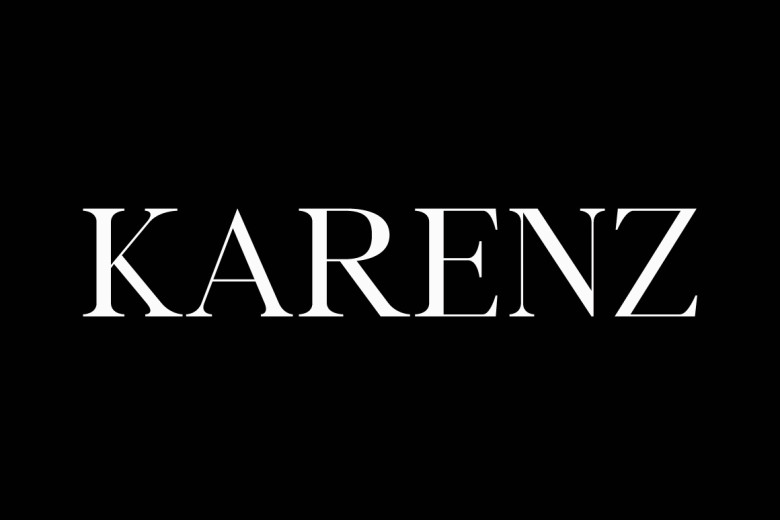
Karenz Font
Karenz is a clean, modern, elegant serif font suitable for headlines, sub-titles social media posts, and a lot of other designs. Use it in any of your creative projects and see how it captures all hearts and attention!
Karenz Modern Serif Font